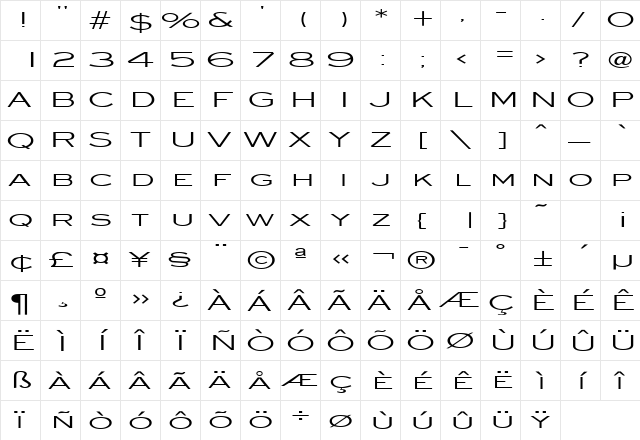
Eye glass Extended Normal
Design Context for Eye glass Extended Typeface
Eye glass Extended takes a measured approach to typography — its balanced proportions and neutral character make it a reliable workhorse for both digital and print work.